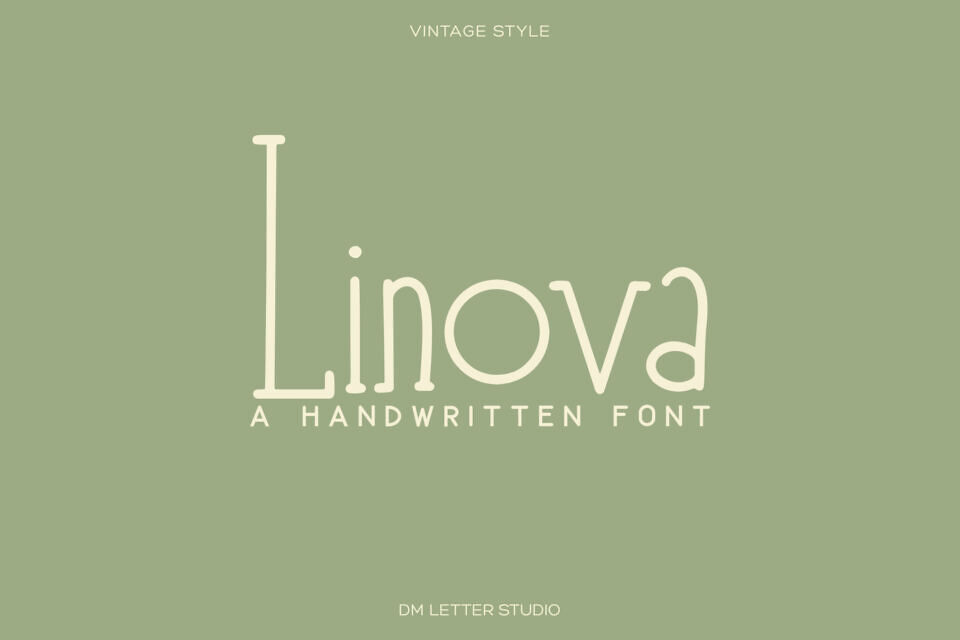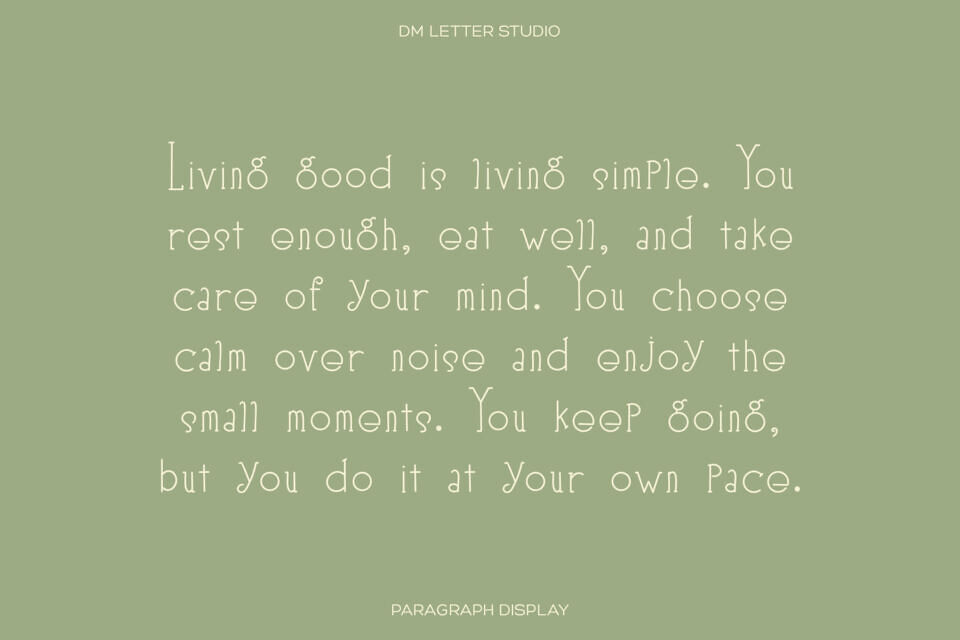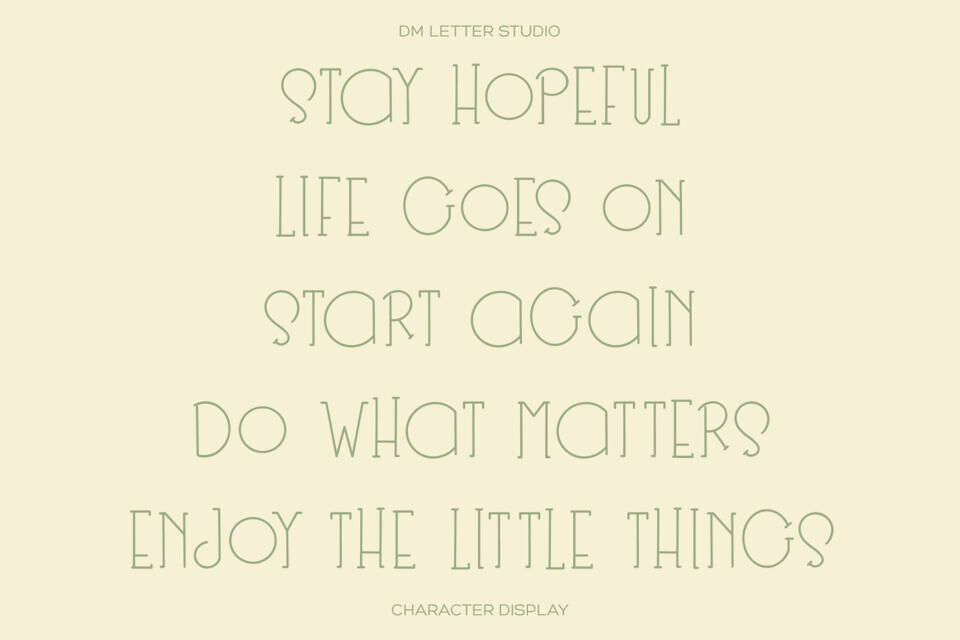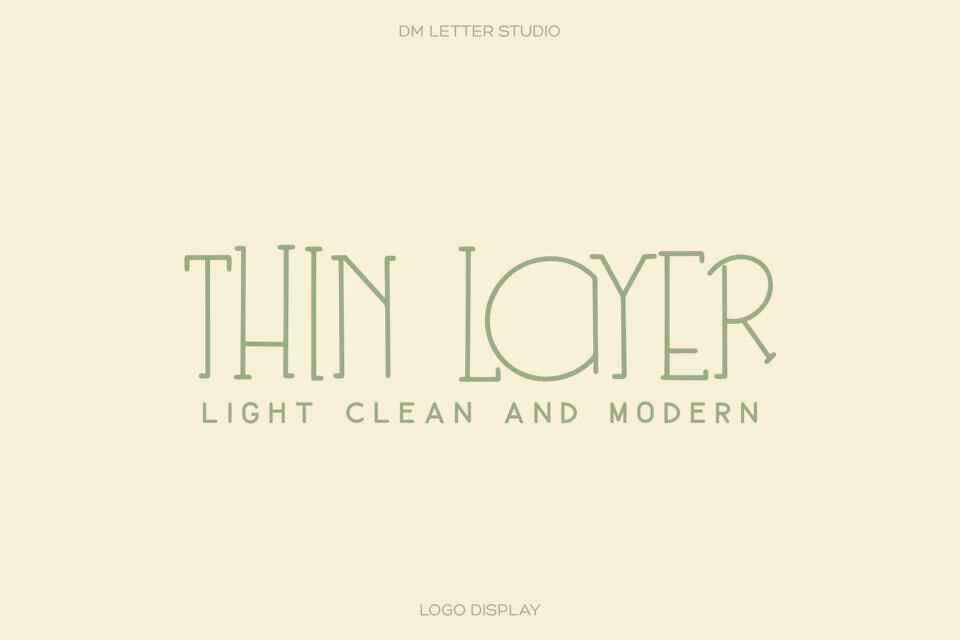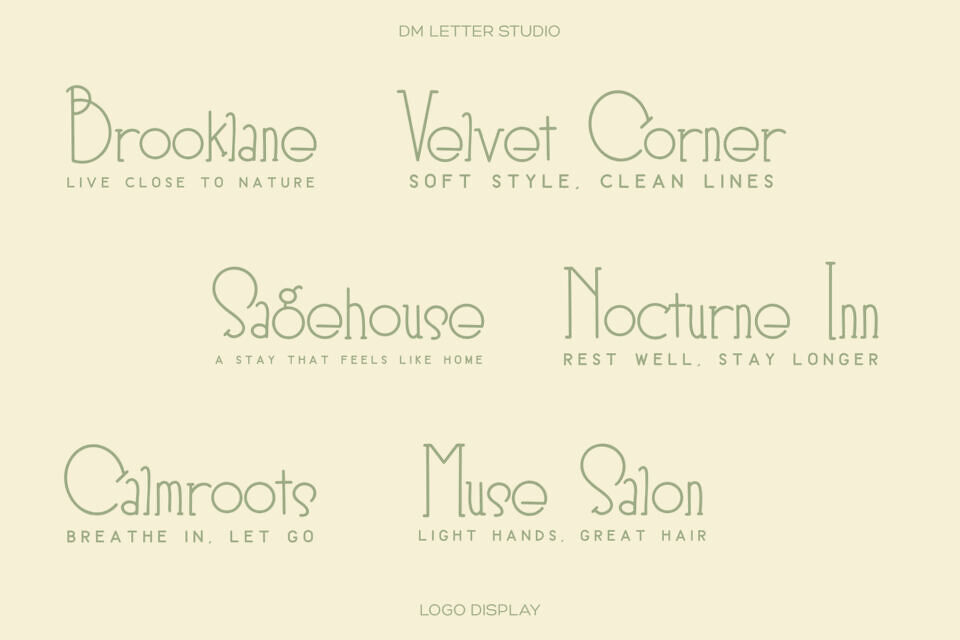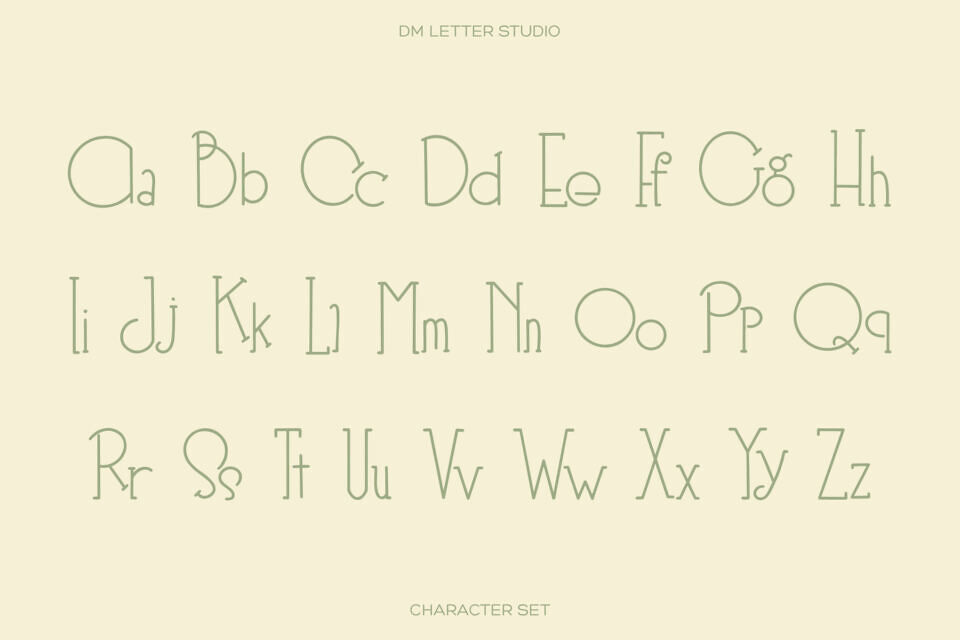
Linova Font
Linova is a sleek, modern handwriting font with a natural flow. Its light, consistent strokes bring a soft, human feel to text without sacrificing clarity. Well-balanced lines make it readable at small sizes and elegant in larger layouts.
Perfect for logos, quotes, and minimalist designs, Linova adds a personal, calm touch to branding, social media, and packaging, giving your work a contemporary feel.